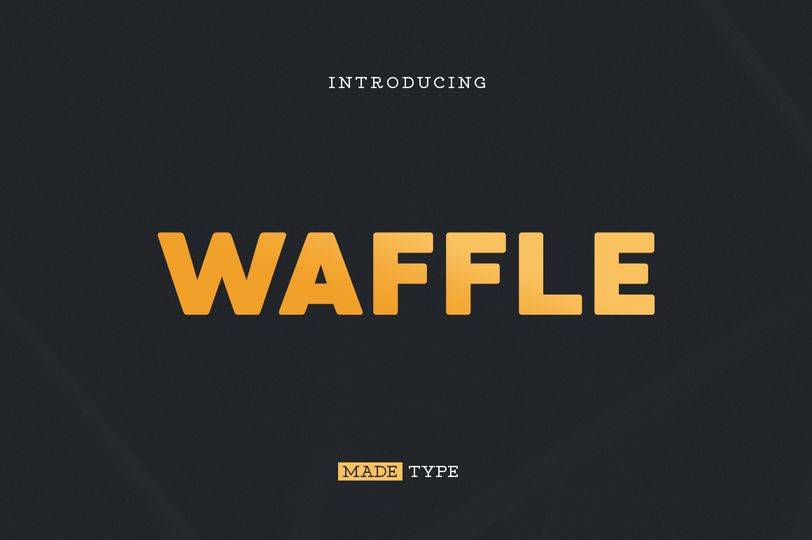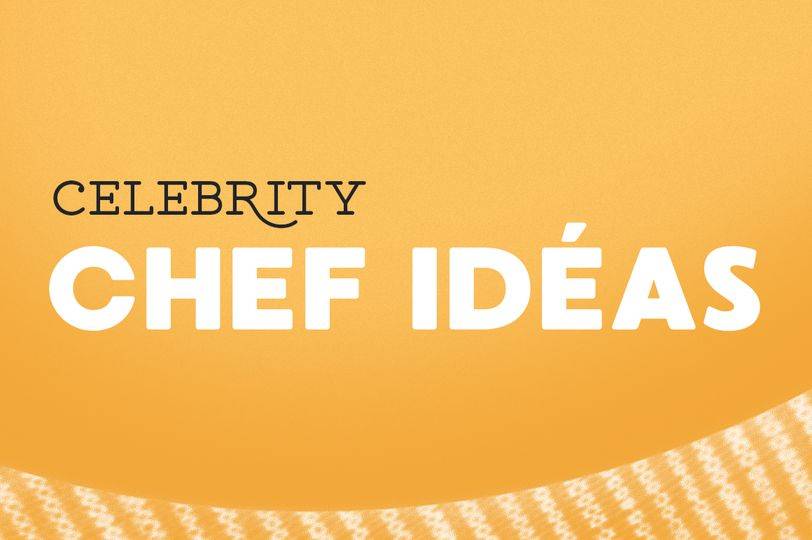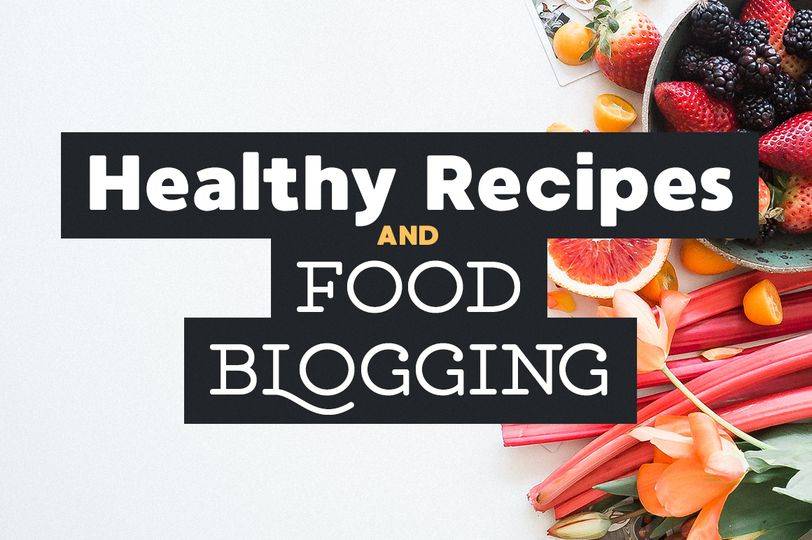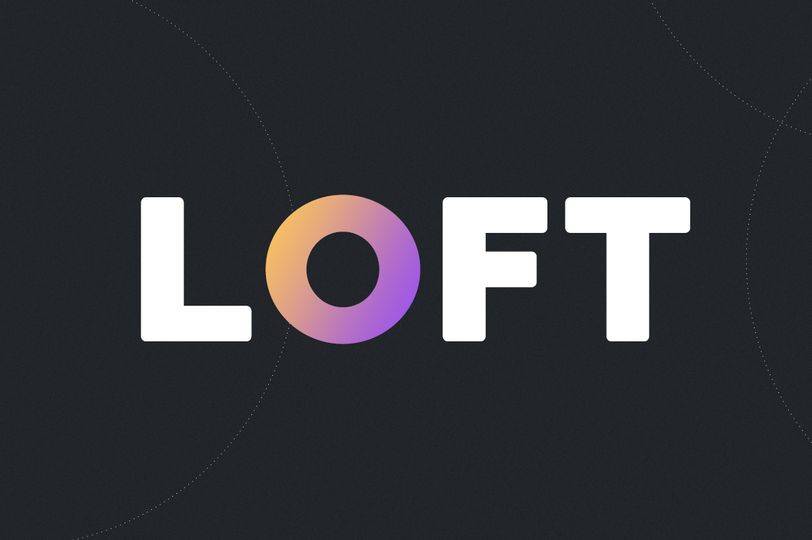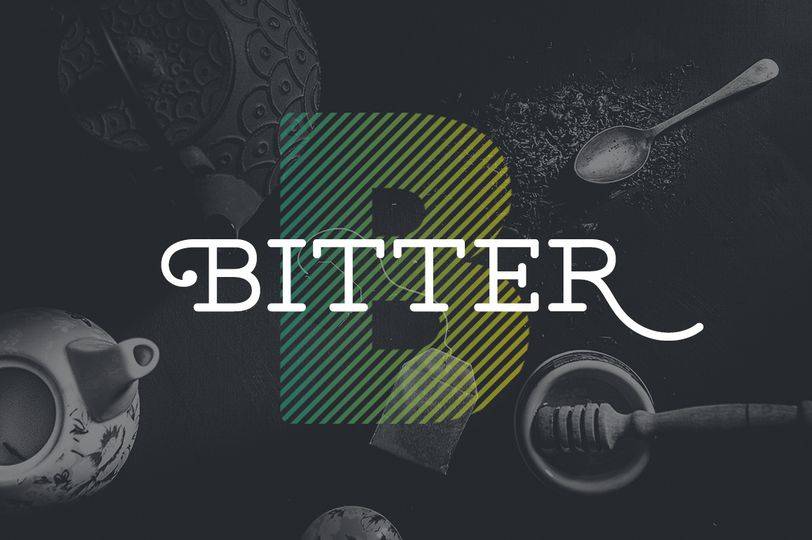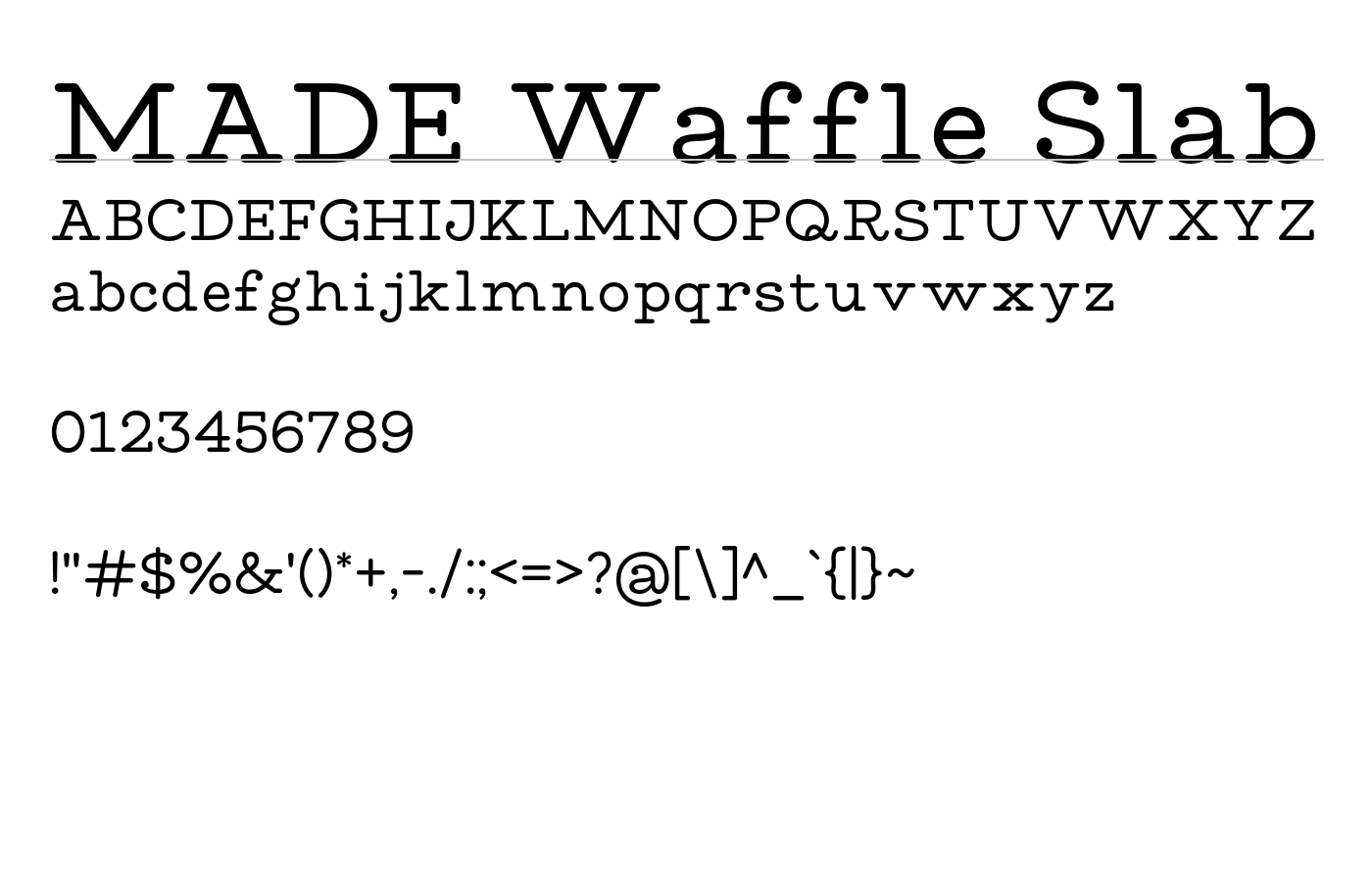
Made Waffle Slab is a clean, friendly slab serif font characterized by its uniform weight, rounded slab serifs, and a slightly condensed width that gives it a neat and organized appearance. Its clear, monospaced-like structure with simple, rounded details brings a vintage typewriter charm, making it ideal for packaging, editorial design, and branding that aims for a warm yet professional feel. This font works well in both headlines and body text, lending an approachable but structured personality to any project.
Made Waffle Font
About Made Waffle Font
| Font family | Made Waffle Font |
| Release date | 2017-06-17 |
| Designer | MadeType |